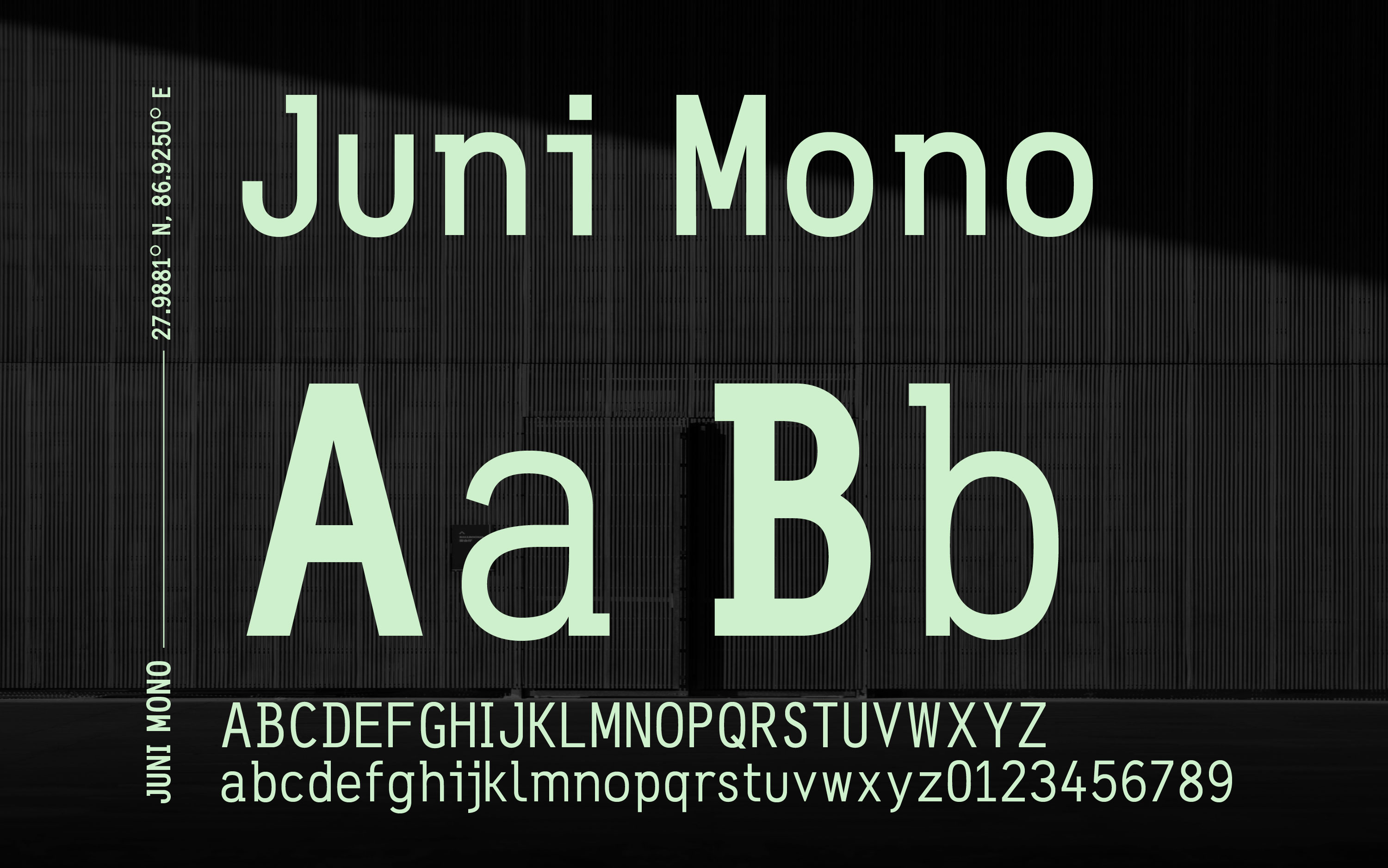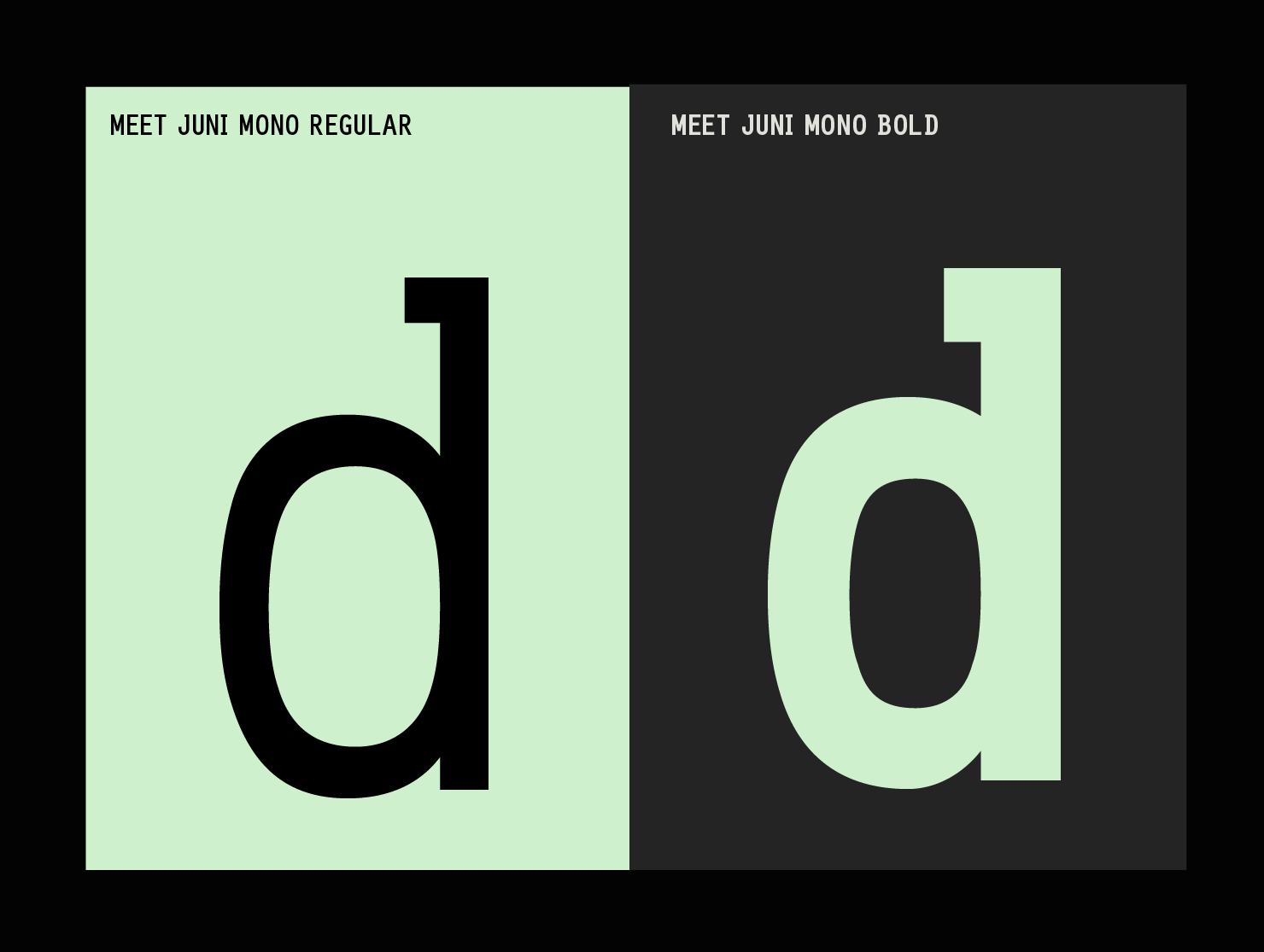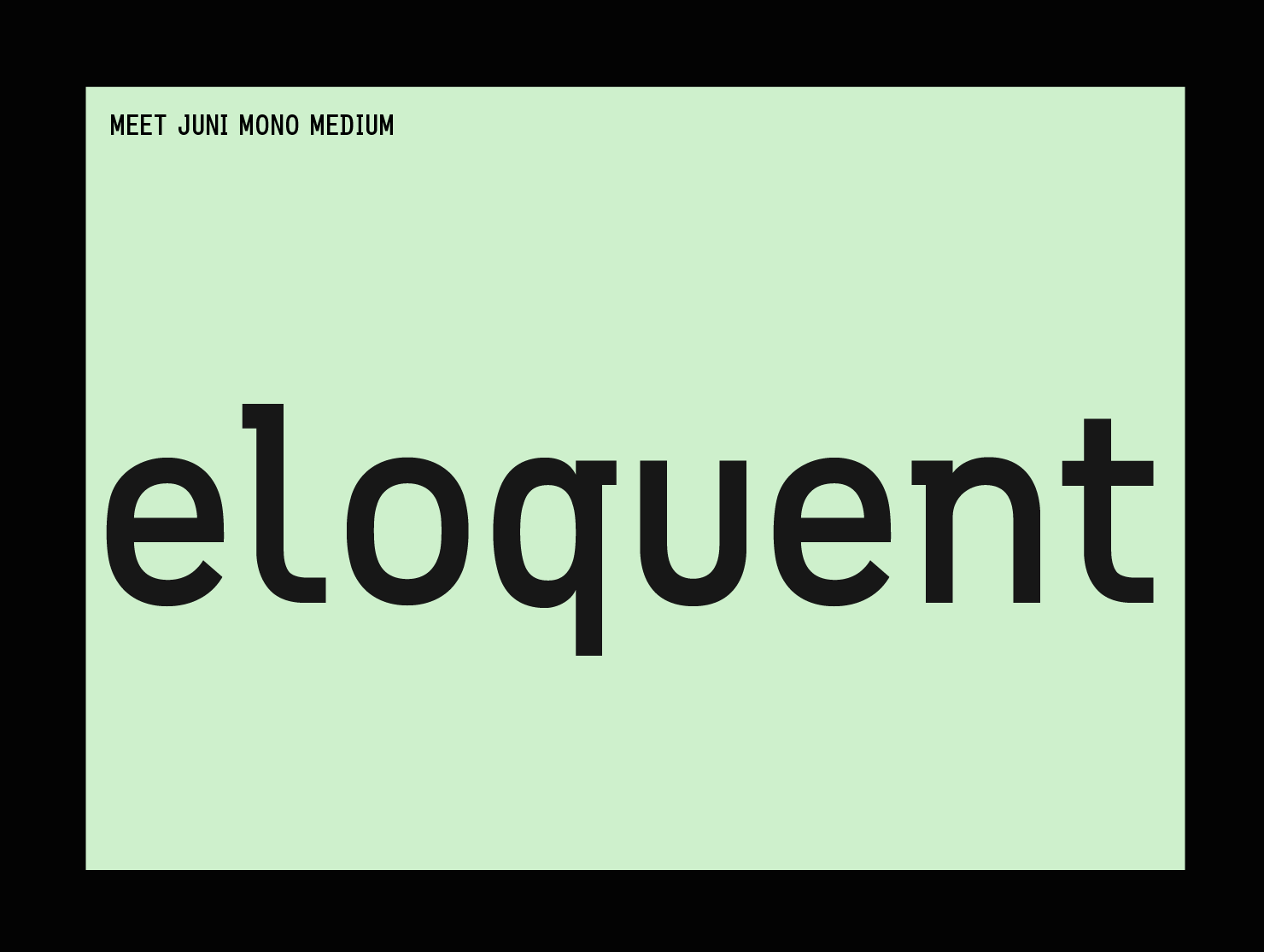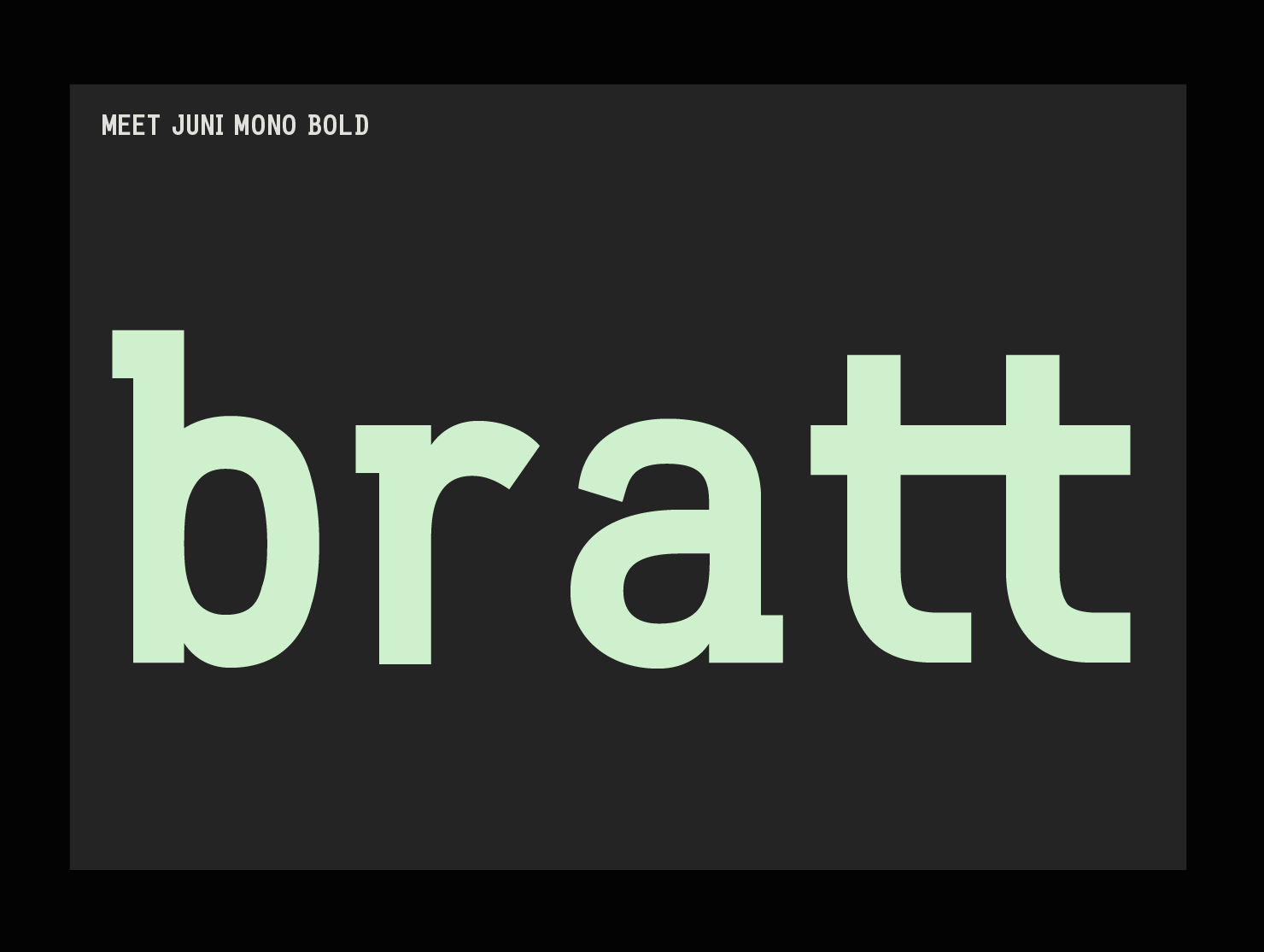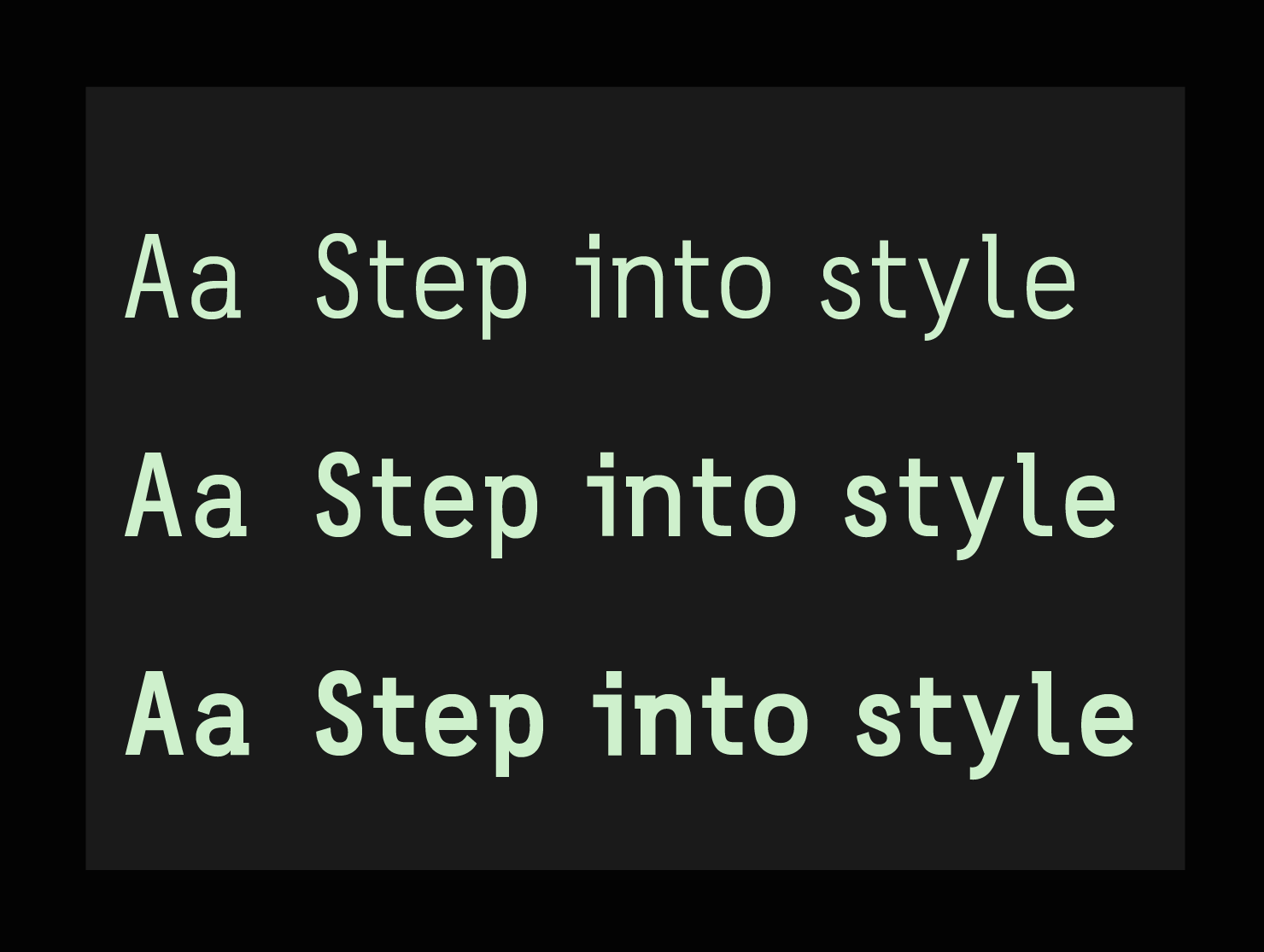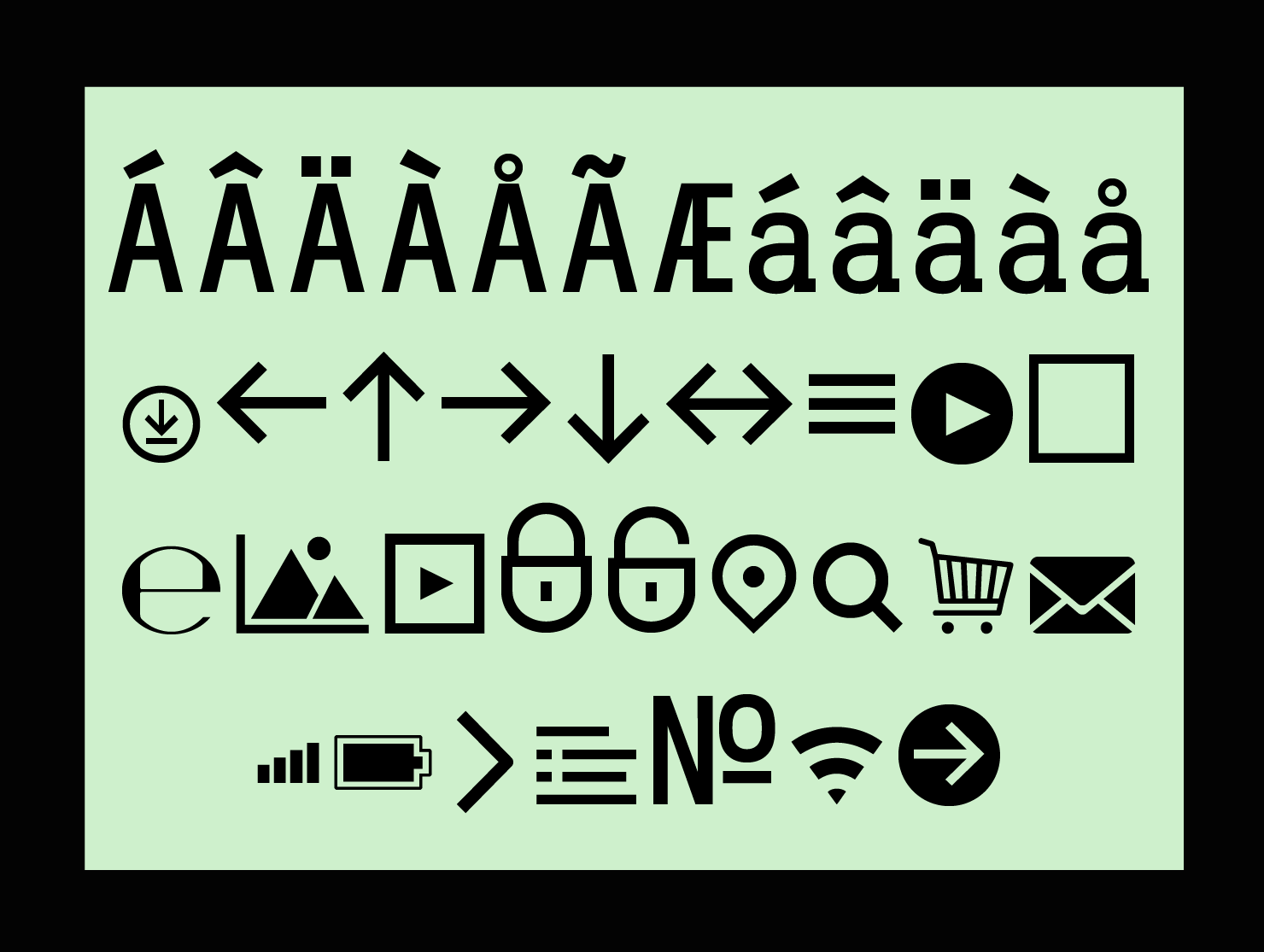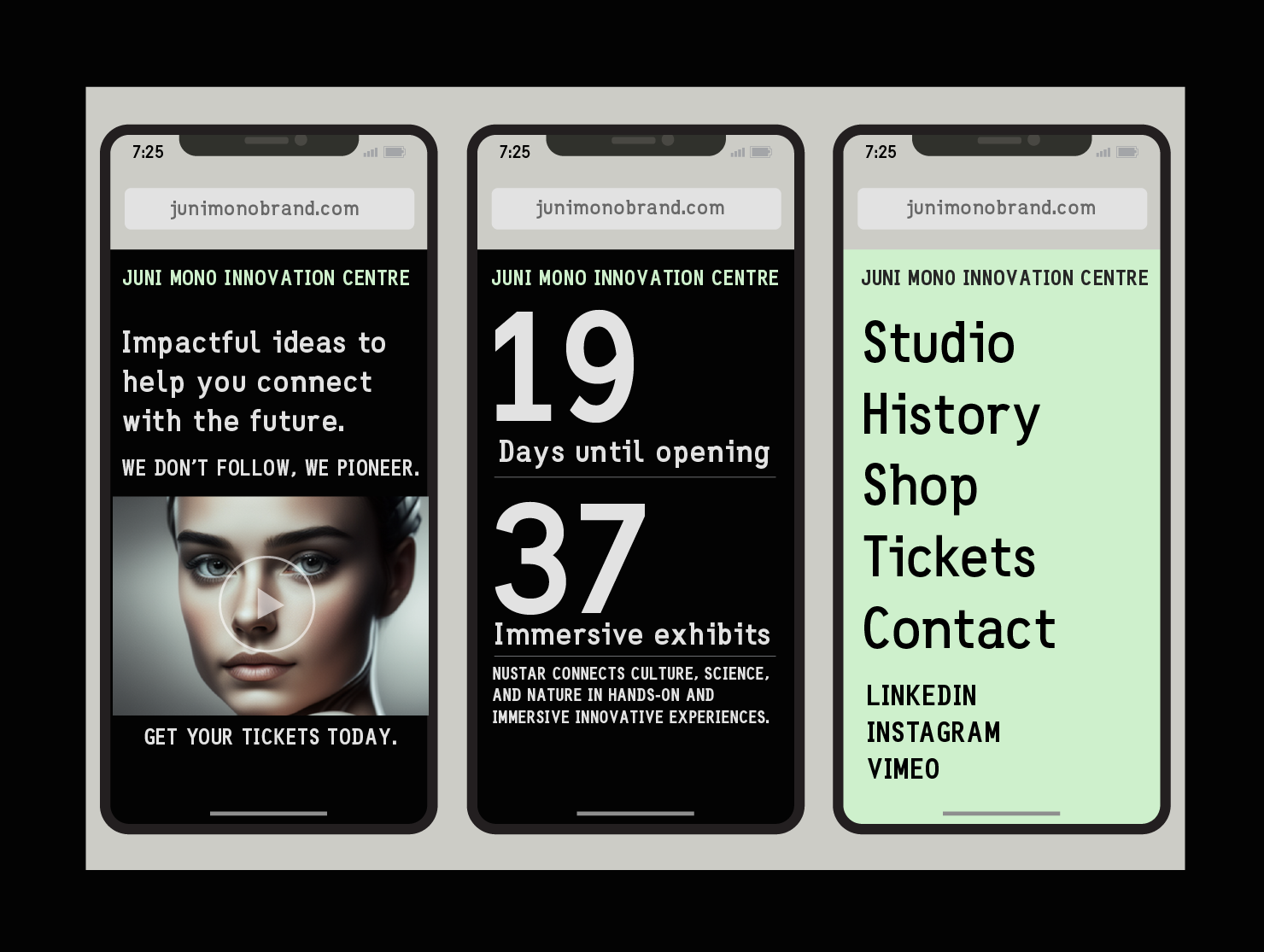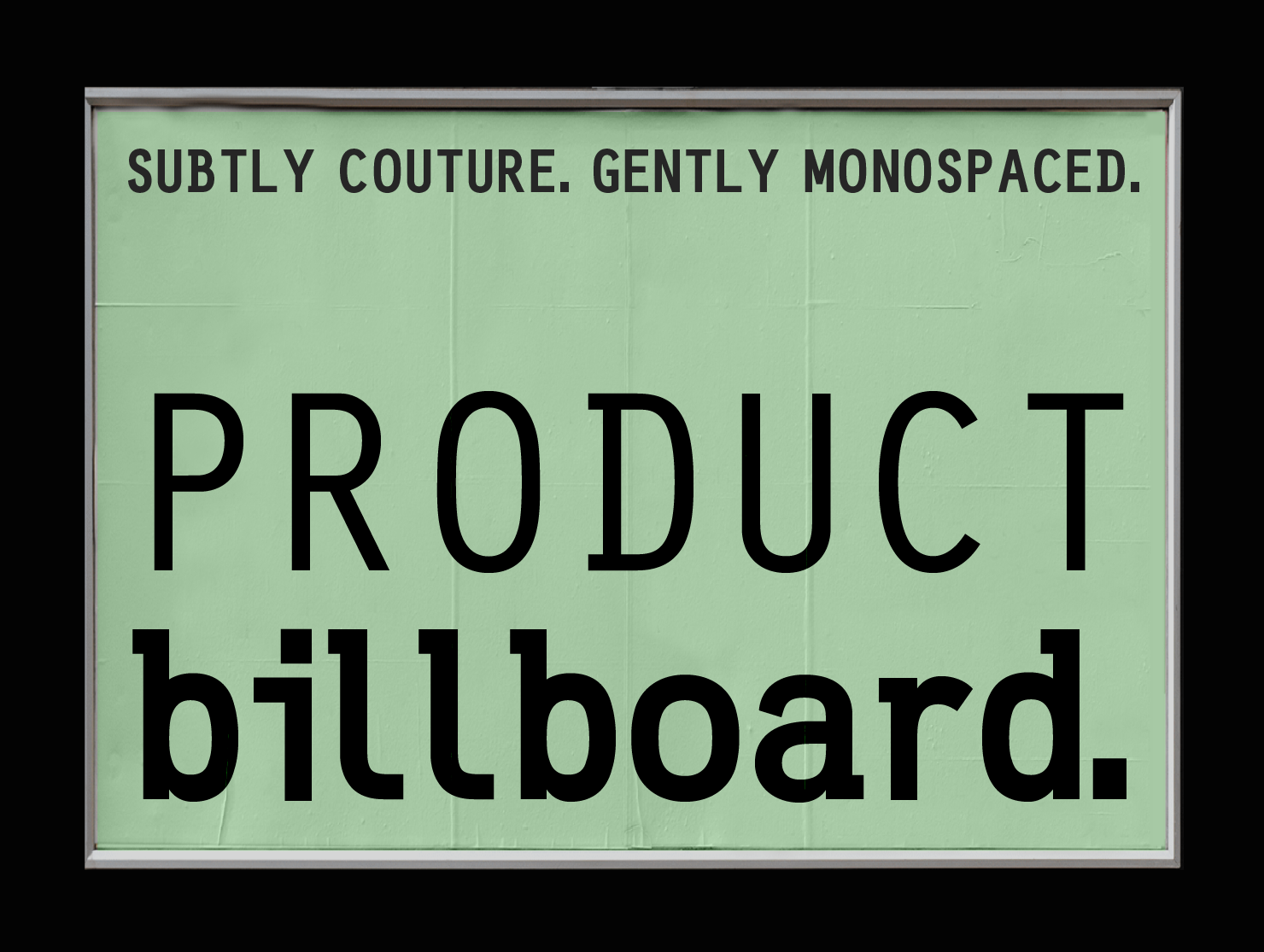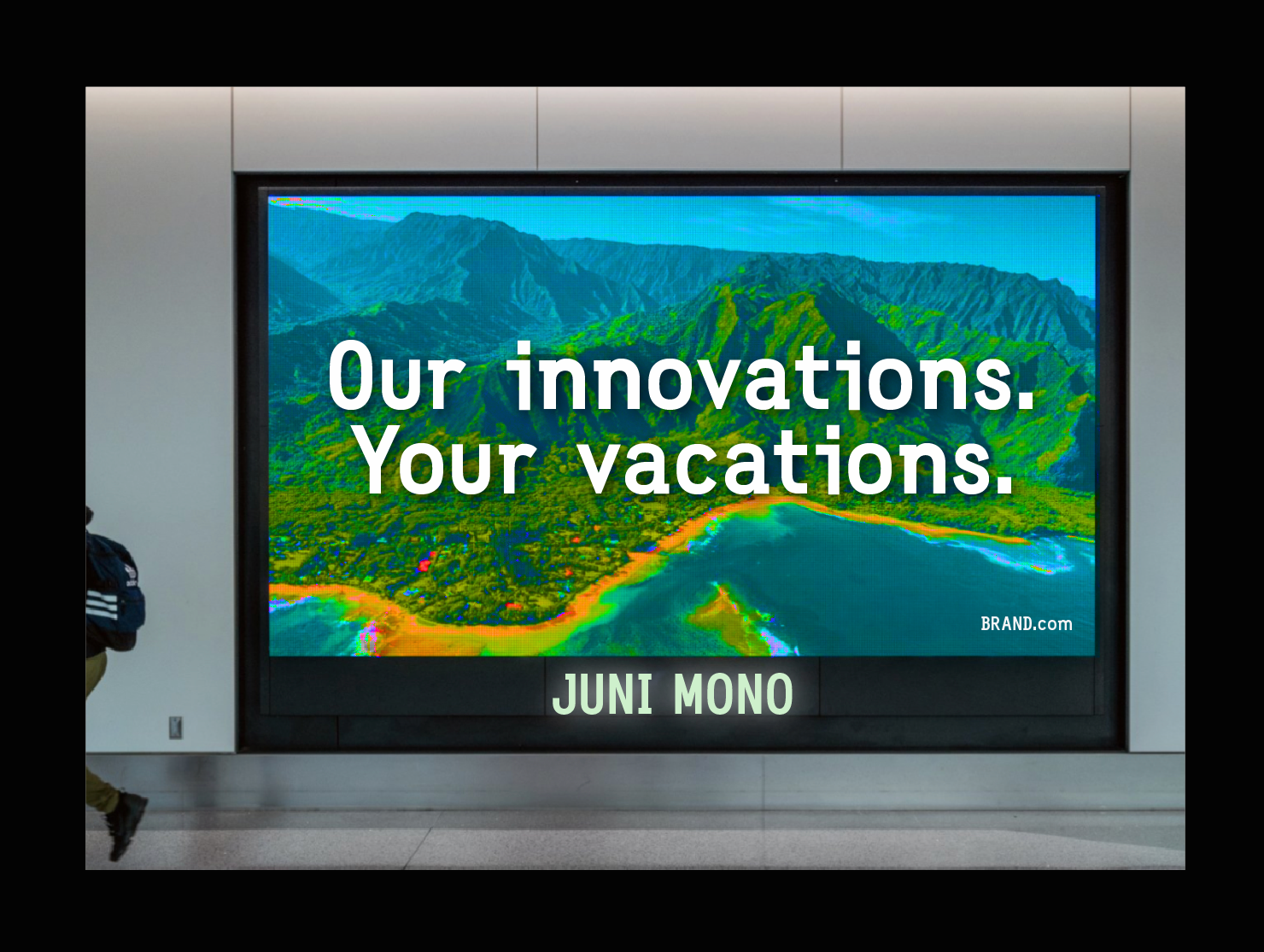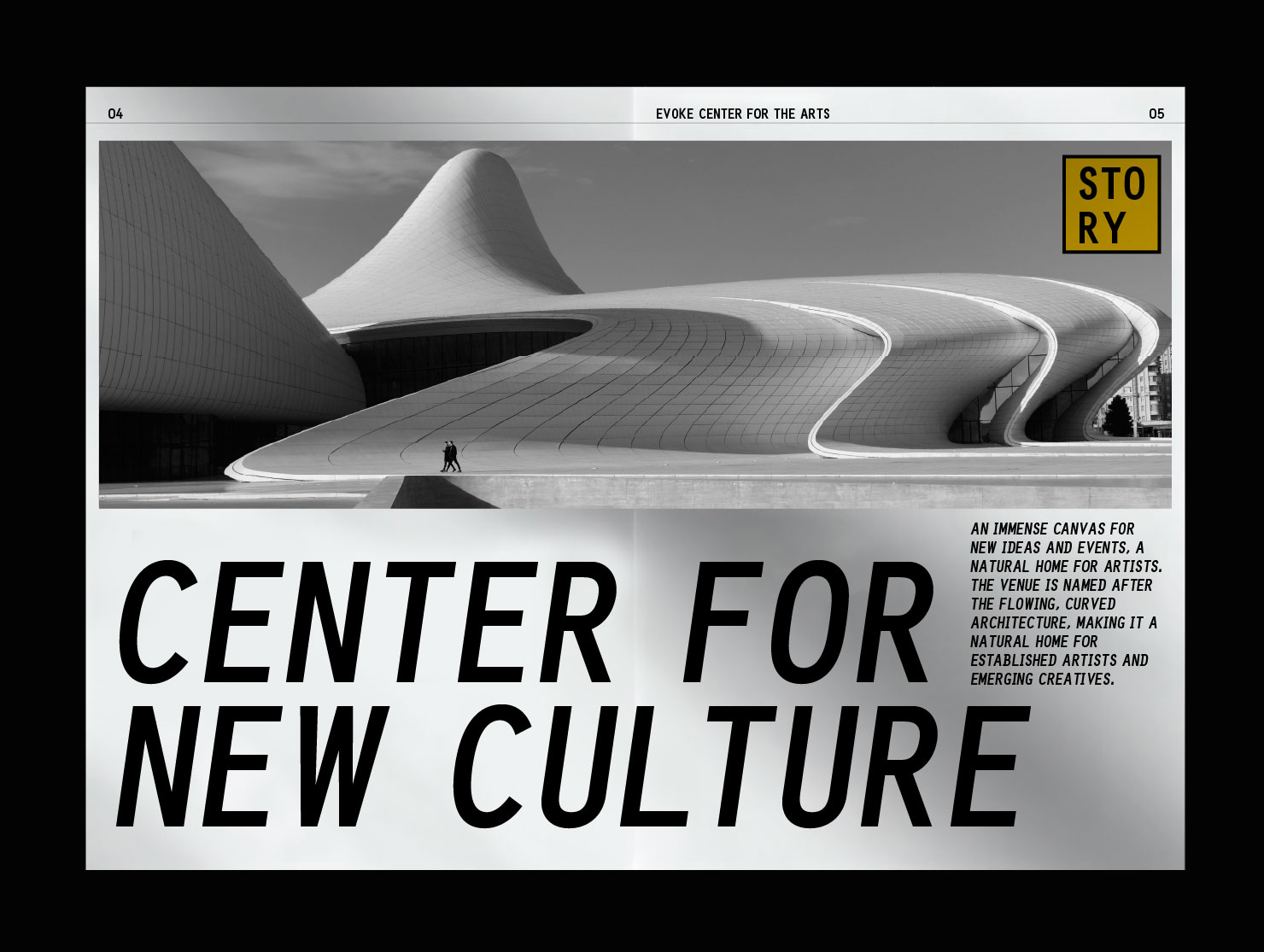
Juni Mono
THE ELEGANT MONO
A uniquely elegant monospaced font, Juni Mono defies the rigid conventions of fixed-width design. Licensing will be available through Monotype in 2027: Juni Mono.
Elegant monospaced font
THREE WEIGHTS FROM REGULAR TO BOLD
Multilingual monospaced font
MULTILINGUAL + SPECIAL CHARACTERS
Monospaced Web Font
ELEGANT ON SMALL SCREENS
Monospaced poster font
ATTENTION-GRABBING ON A LARGE SCALE
Designer Web Font
CAPTIVATING BILLBOARD FONT
Monosapced poster font
LAYOUT DESIGN FONT
Monospaced presentation font
EXPRESS TRUST THROUGH TYPOGRAPHY
Swiss style poster font
LAYOUT DESIGN FONT
Eloquent
ELEGANT GLYPHS
Swiss style poster font
AMPLE LIGATURES
Modern monospaced font
MODERN TYPOGRAPHY ANGLES
Modern typography design
MODERN FONT DESIGN